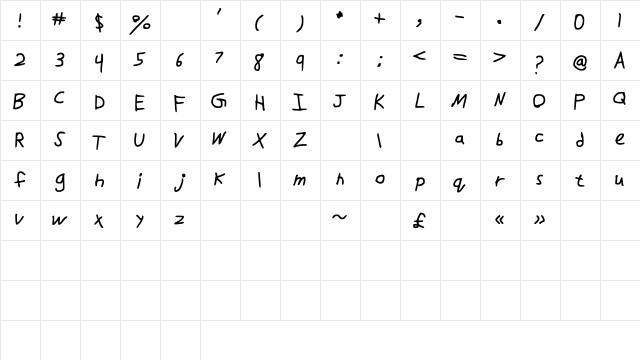
DrawFont Medium
Design Context for DrawFont Typeface
DrawFont is a composed and adaptable typeface that performs quietly and consistently across a wide range of design contexts.